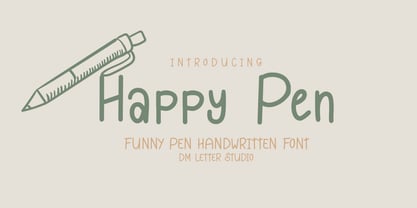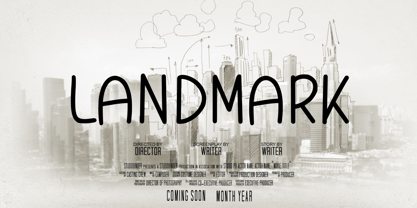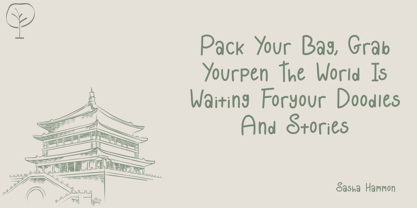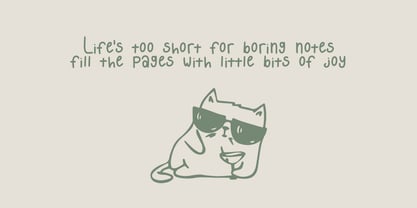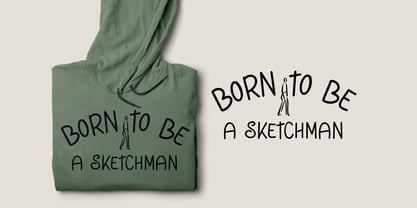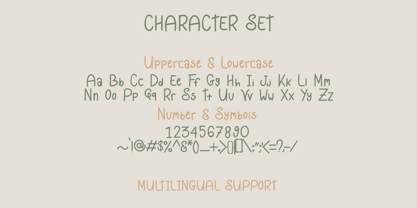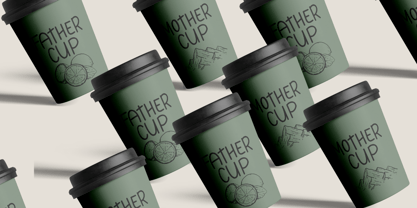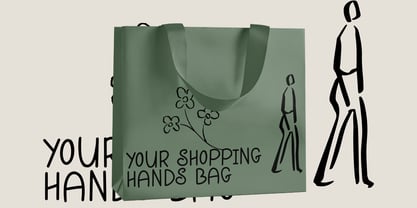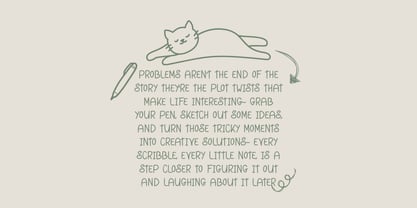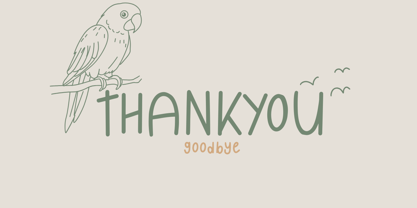
Happy Pen
by DM Studio
The Happy Pen Font Family was designed by Dimas Prasetyo and published by DM Studio. Happy Pen contains 1 styles.
Happy Pen – Funny Handwritten Pen Font
Happy Pen is a cheerful handwritten font that captures the casual feel of doodles and quick notes. With a smooth pen stroke and a bouncy rhythm, this font adds charm and character to your designs. Ideal for quote stickers, social media posts, kid-friendly branding, digital planners, and crafty projects—Happy Pen delivers lighthearted fun in every letter.
Features:
• Playful Pen Strokes: Handwritten forms with natural curves and a touch of personality.
• Perfect for Whimsical Designs: Use it for quote stickers, planners, children's products, and creative packaging.
• Friendly and Readable: Designed to be fun without sacrificing clarity or legibility.
• Complete Character Set: Includes uppercase, lowercase, numbers, punctuation, and multilingual support.
Designers: Dimas Prasetyo
Publisher: DM Studio
Foundry: DM Studio